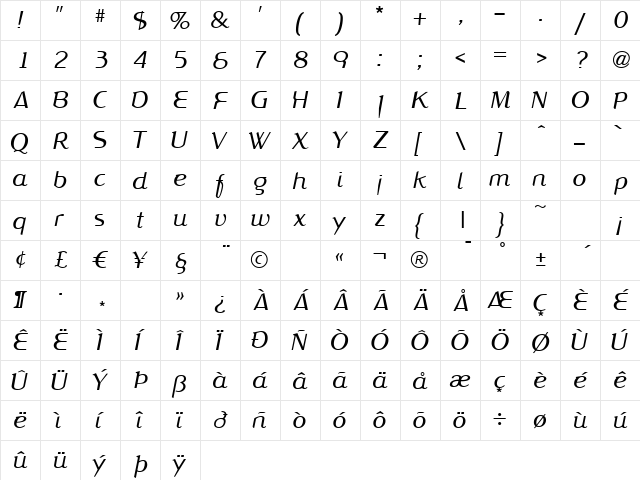
Xyperformulaic2.0 S Regular Font Preview
Xyperformulaic2.0 S Regular
Xyperformulaic2.0 S Regular Font Details
Design Context for Xyperformulaic2.0 S Typeface
Xyperformulaic2.0 S is a composed and adaptable typeface that performs quietly and consistently across a wide range of design contexts.